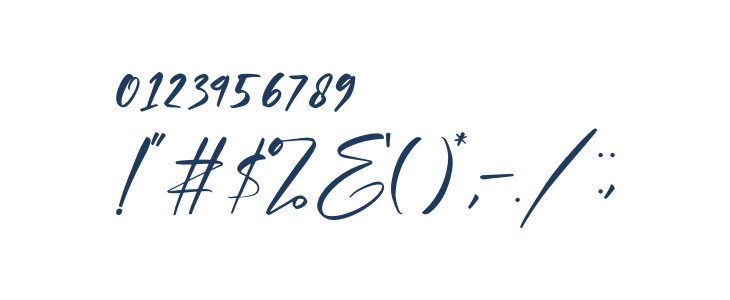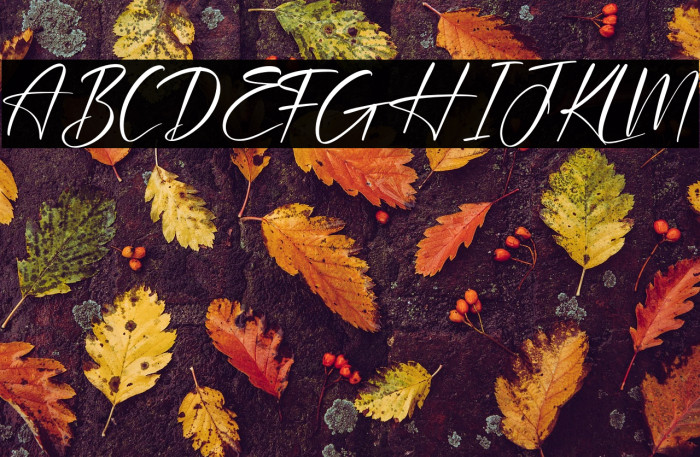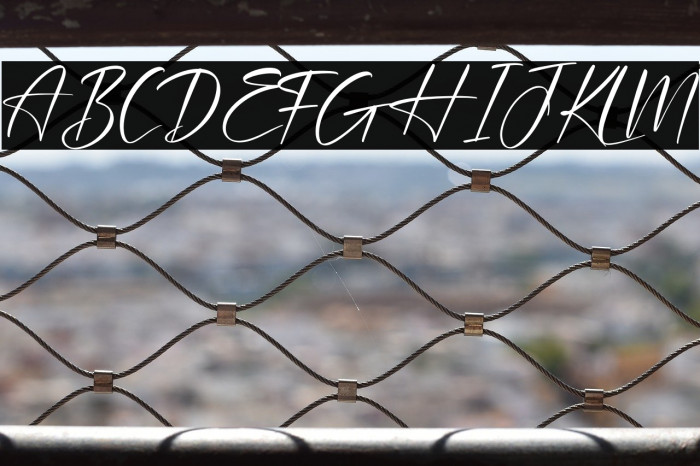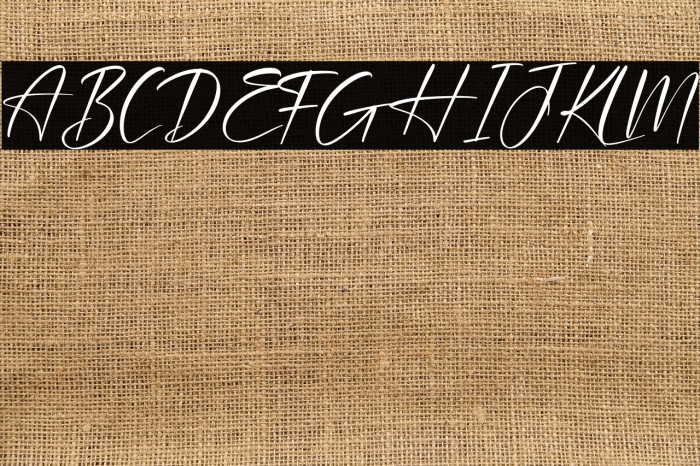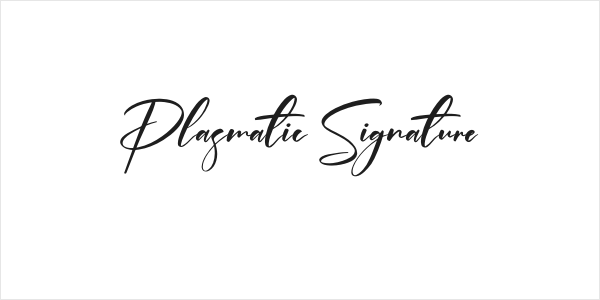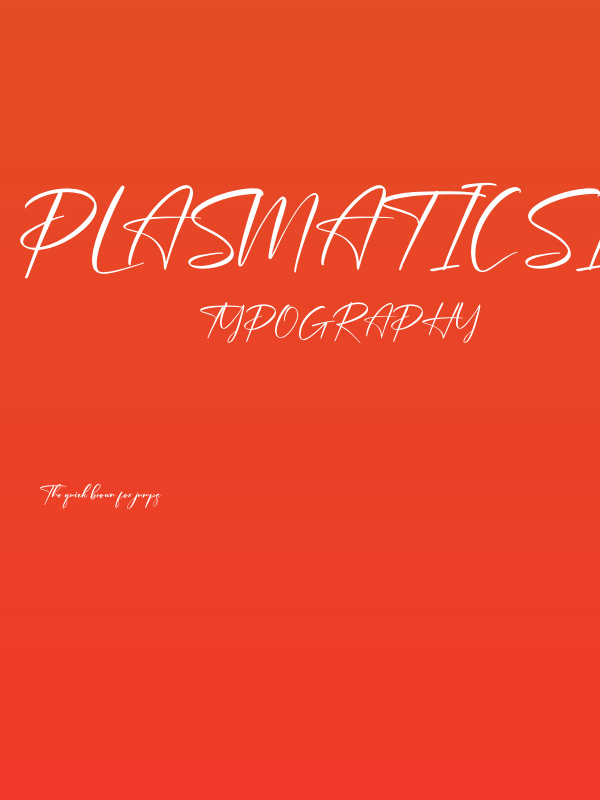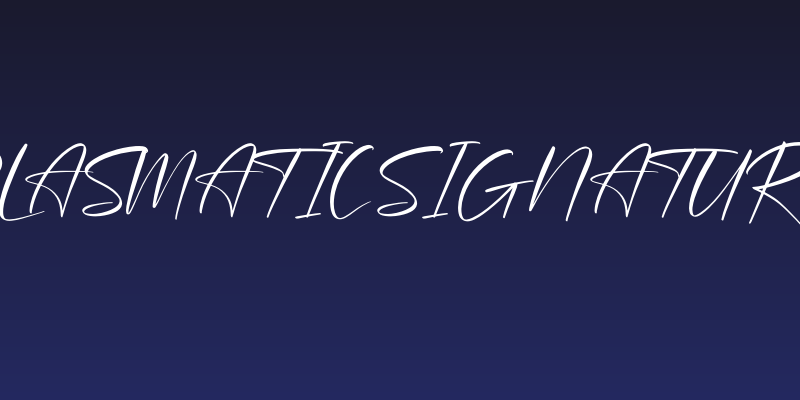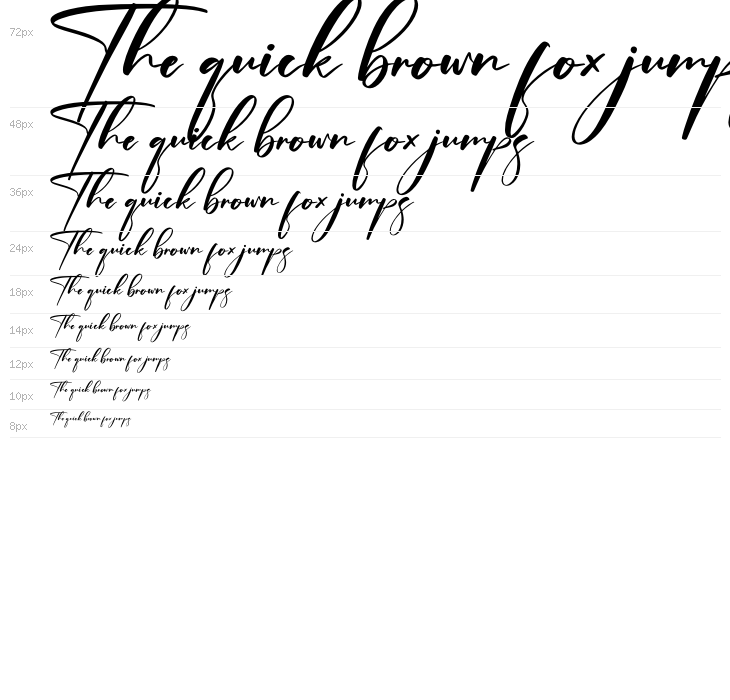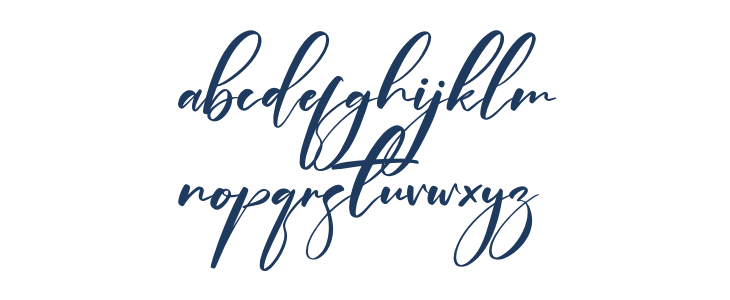
Plasmatic Signature Font
Plasmatic Signature Description
This font features a dynamic and fluid script style, characterized by its elegant and flowing letterforms. The uppercase letters exhibit a graceful, sweeping motion, while the lowercase letters maintain a consistent, cursive appearance. The numbers are bold and slightly more structured, providing a nice contrast to the letters. Special characters are integrated seamlessly, maintaining the overall aesthetic. The font's design is both sophisticated and approachable, making it suitable for a variety of creative applications.
| Use Case | Logos, Invitations, Branding |
| Proposed Projects | Ideal for wedding invitations, branding projects, logo design, and elegant stationery. |